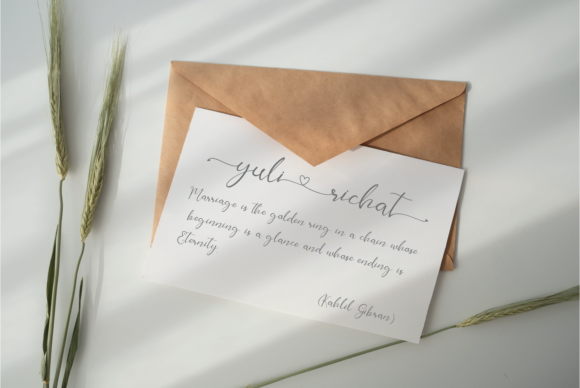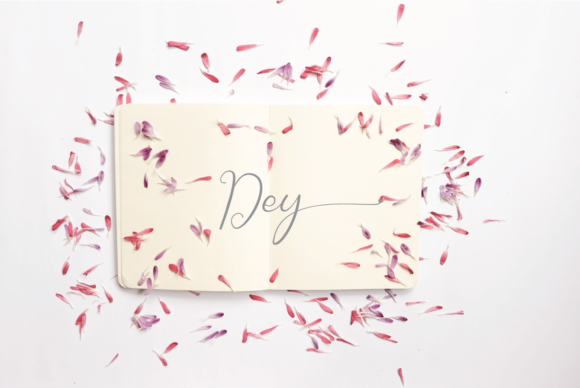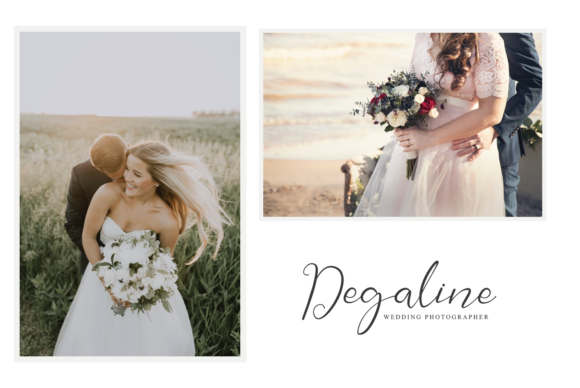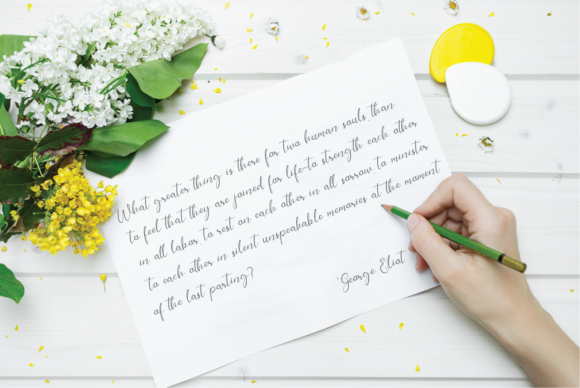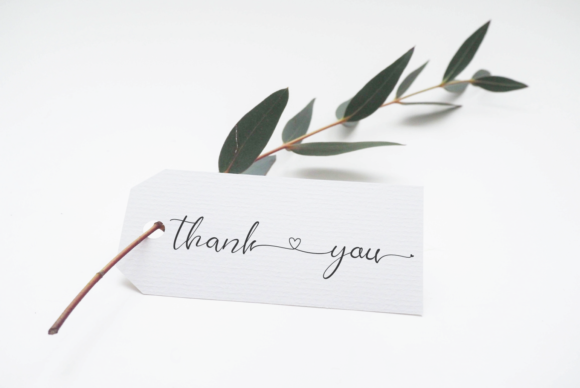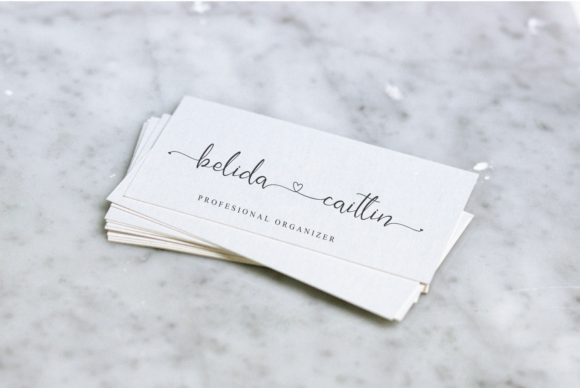
The Perfect Handwritten Touch
There’s something magical about stumbling upon a new font that perfectly captures the essence of a project. The excitement of experimenting with different styles, the thrill of finding that one font that brings your design to life – it’s a moment every designer can relate to.
Meet Jelia Elbern Font, a charming and modern handwritten font that embodies the perfect blend of friendliness and sophistication. With its unique character and versatility, Jelia Elbern Font is the perfect tool for designers looking to add a personal touch to their creations. Whether you’re crafting a logo, creating a social media post, or designing a wedding invitation, Jelia Elbern Font is sure to elevate your designs and make them stand out.
What sets Jelia Elbern Font apart from other fonts is its ability to convey a sense of warmth and approachability, making it an invaluable asset for designers who want to connect with their audience on a deeper level.
Jelia Elbern Font Key Features
- Font Family: Jelia Elbern Font is a unique, elegant font family designed for various applications.
- Font Size: Jelia Elbern Font comes in multiple font sizes, including regular, bold, italic, and bold italic, catering to various design needs.
- Unique Characteristics: The font features intricate details, ornate flourishes, and a mix of modern and classic elements, making it perfect for luxury branding and high-end designs.
Jelia Elbern Font Review
Overall, I found the Jelia Elbern Font to be a visually appealing and elegant font. Here are some aspects that work well: ✨
- Unique flair: Jelia Elbern Font has a distinctive flair to its letters, giving it a touch of sophistication.
- Legibility: The font is highly legible, making it suitable for a wide range of applications.
- Pairing possibilities: Jelia Elbern Font pairs well with a variety of other fonts, allowing for creative and stylish combinations.
- Limited font weight options: The font only comes in a few weight options, which may limit its use in certain contexts.
- No italic or bold styles: The font does not include italic or bold styles, which can be a drawback for some designers.
Despite these limitations, I would recommend the Jelia Elbern Font for projects where a touch of elegance is needed. Its unique flair and high legibility make it a solid choice for designers looking to add a bit of sophistication to their work.
Tips for Getting the Most Out of Jelia Elbern Font
Use Jelia Elbern font for headings and titles to add a touch of elegance and sophistication.
It’s also suitable for body text, especially for creative and artistic content.
Experiment with different font sizes and combinations to achieve the desired visual effect.
Jelia Elbern font is ideal for:
– Creative and artistic projects
– Fashion and lifestyle branding
– High-end marketing materials
– Luxury product packaging and labeling
Alternatives to Jelia Elbern Font for Designers
1. Carolyna Pro Font
Carolyna Pro Font is a modern, elegant script font perfect for wedding invitations, branding, and packaging design. It features a mix of calligraphy and handwriting elements, making it a great choice for adding a touch of sophistication to your designs. Compared to Jelia Elbern Font, Carolyna Pro has a more refined and polished look, making it suitable for high-end designs.
Alex Brush Font is a beautiful, handwritten script font ideal for creating a warm and inviting atmosphere in your designs. It features a mix of brushstrokes and elegant flourishes, making it a great choice for branding, packaging, and advertising design. Compared to Jelia Elbern Font, Alex Brush has a more casual and relaxed feel, making it suitable for designs that require a friendly and approachable tone.